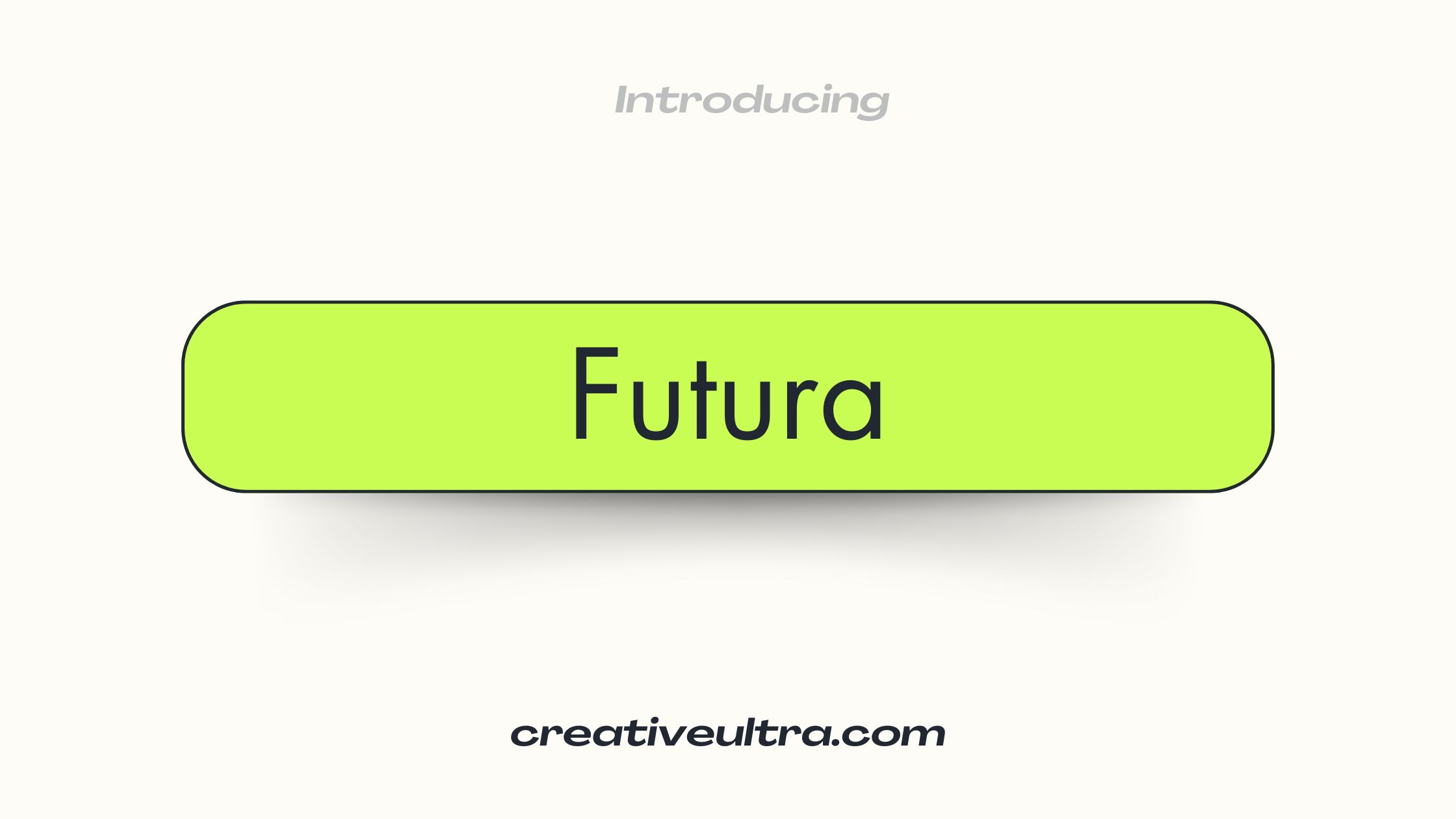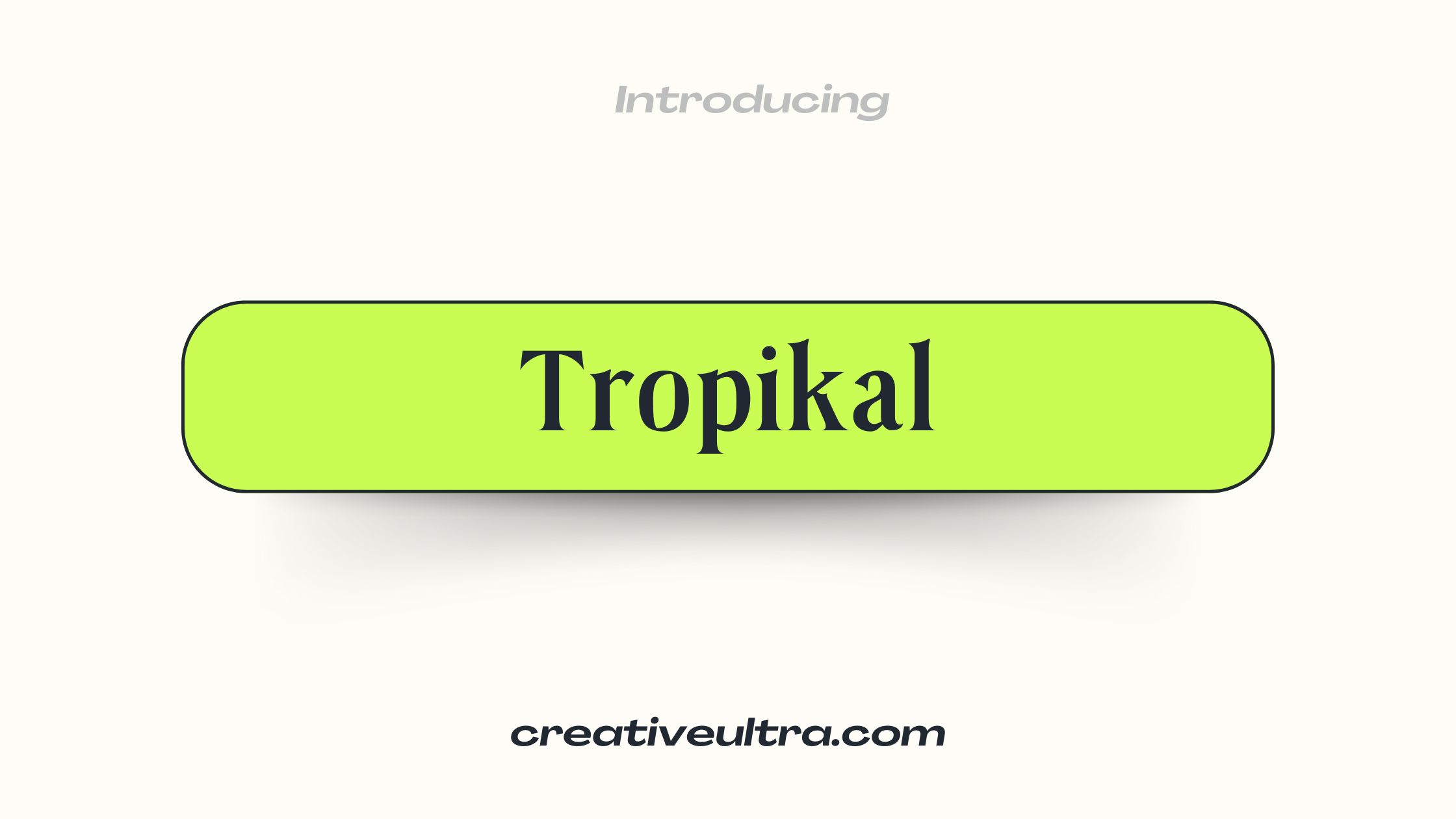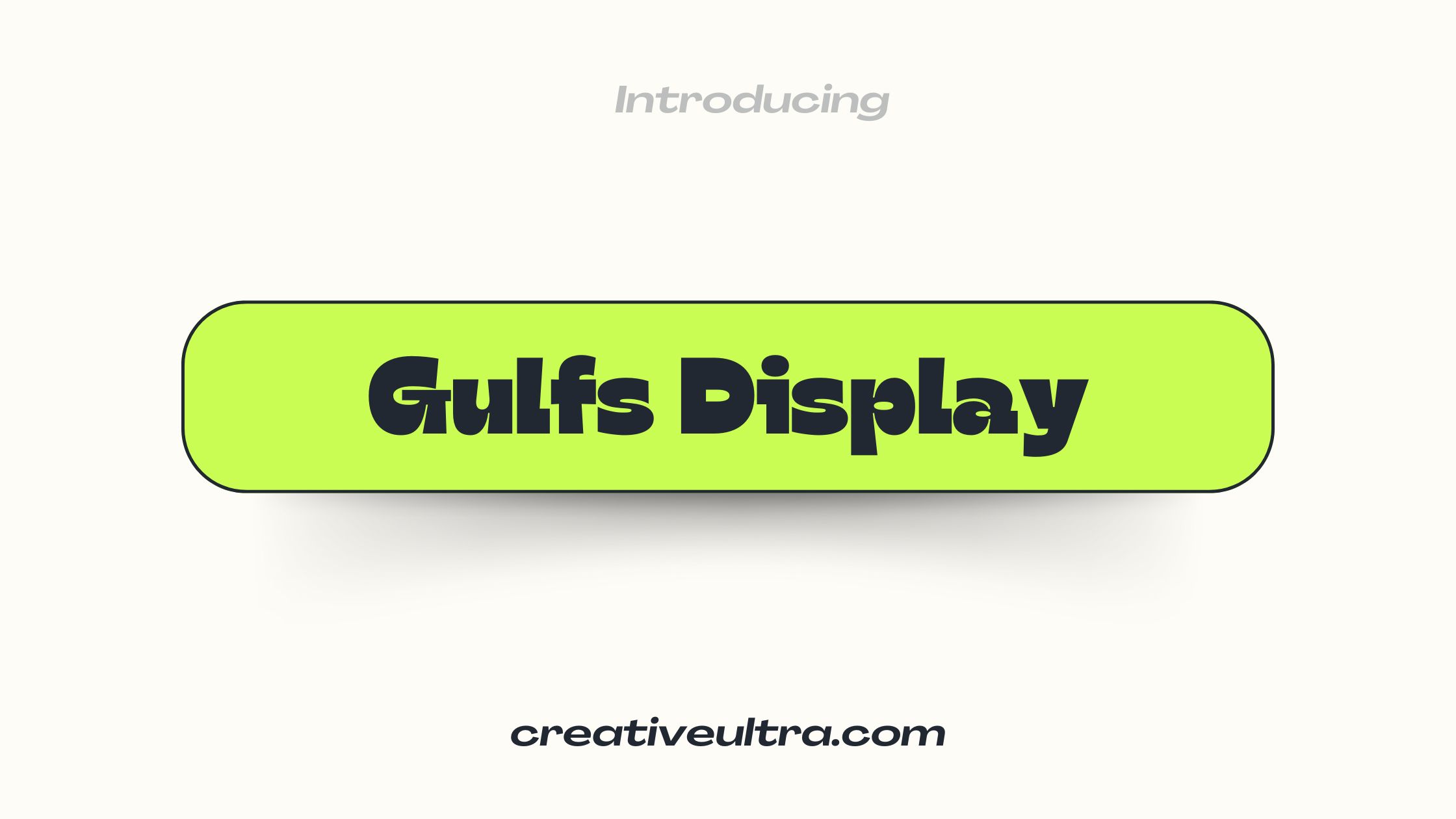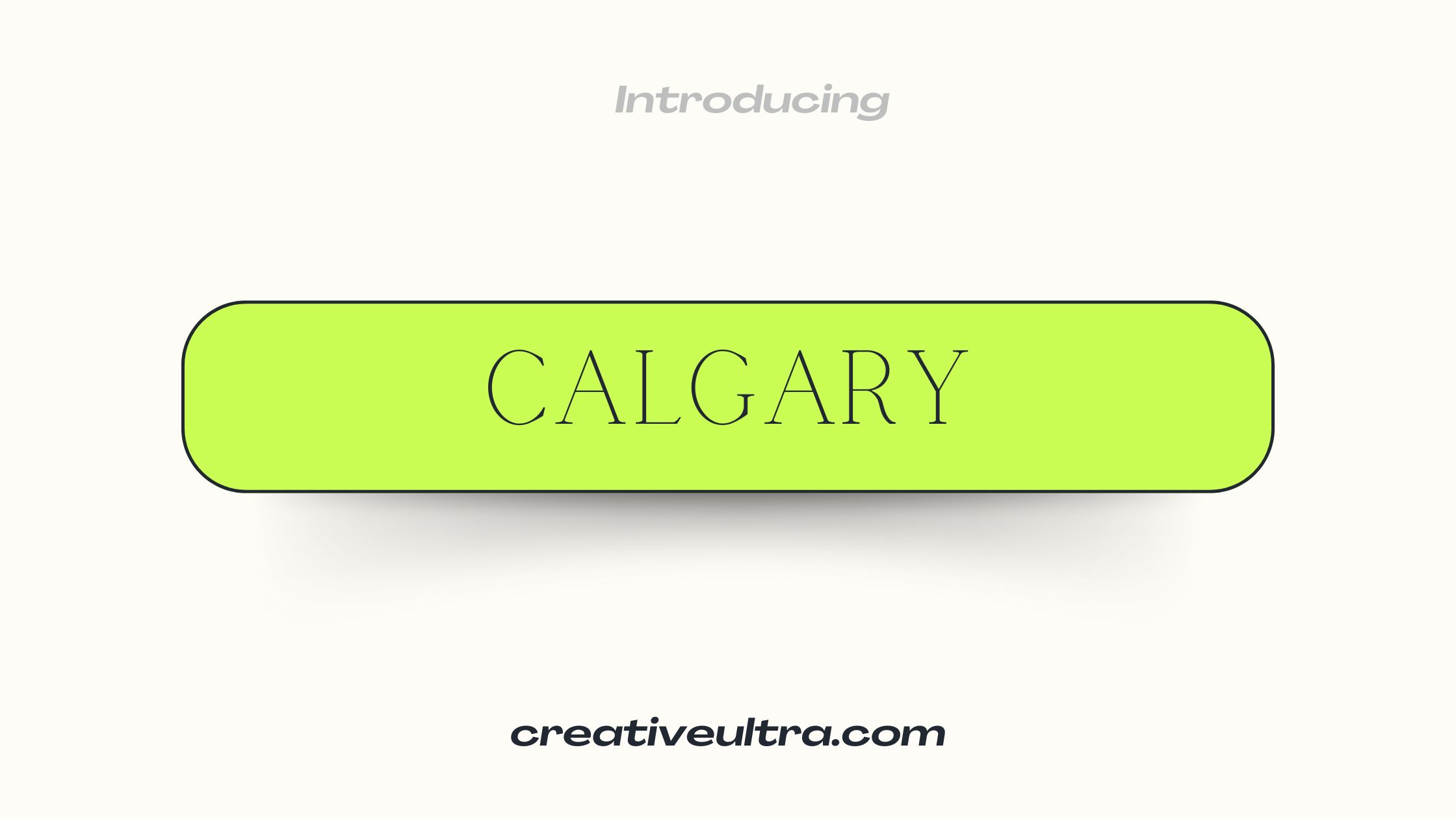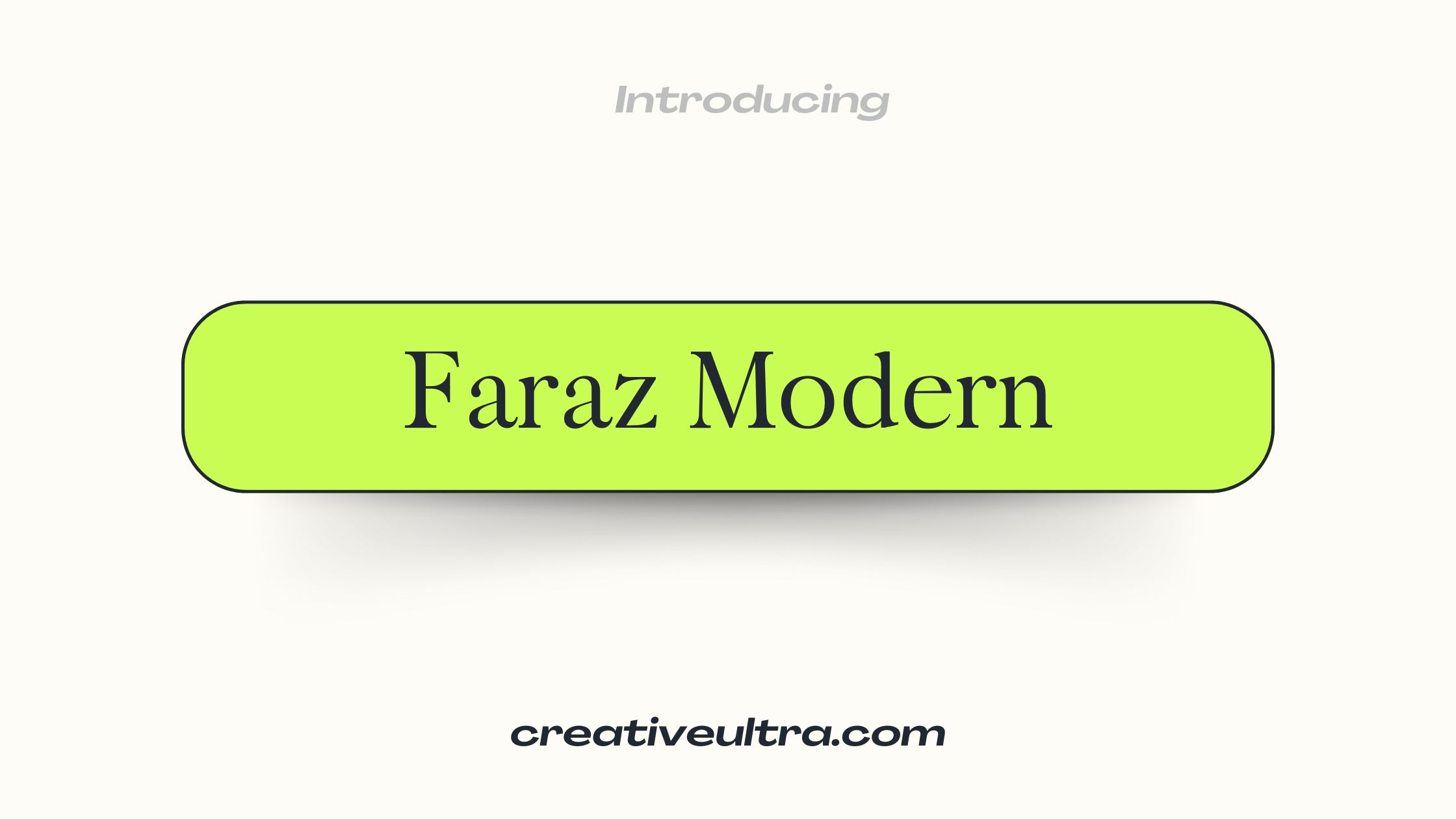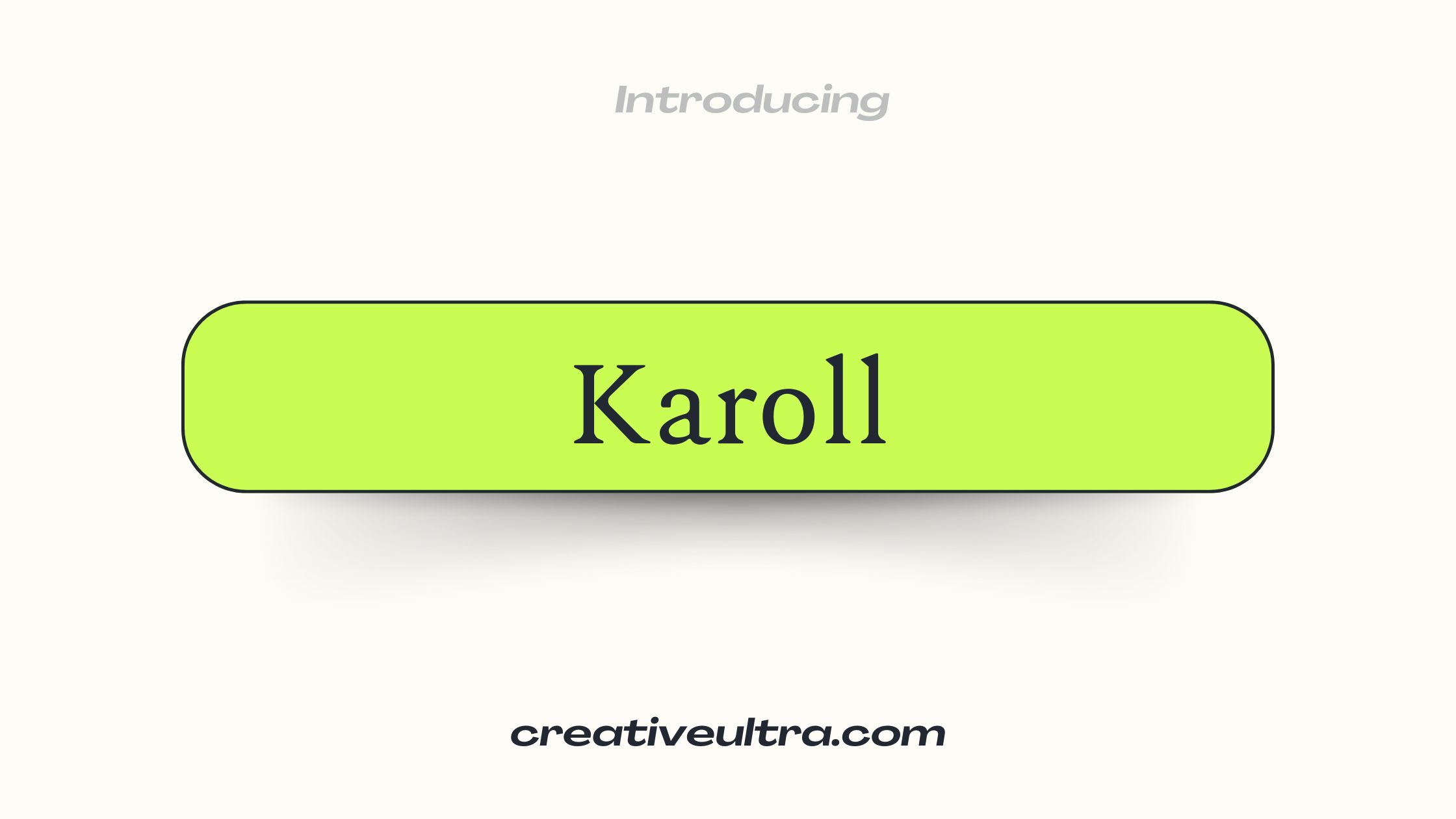
12 Best Canva Fonts for Posters
Are you looking for Canva fonts for posters? Fonts are the main ingredients nowadays when setting the tone and style of your design. Whether you’re working on a bold event flyer or a creative announcement, the right font can make your message shine.
Canva offers a large collection of fonts for poster designs and has styles like modern, playful, or classic. These fonts are easy to use, saving time while ensuring your design looks professional.
In this post, we’ve handpicked 12 of the best Canva fonts for posters. Each of these fonts has its unique feel and appearance, making it great for various poster themes. Let’s go into the details of these amazing fonts!
Futura Font
Futura is a classic geometric sans-serif font. Its clean and minimal look makes it perfect for modern posters. Great for headlines or logos.
Calgary Font
Calgary is a contemporary font with bold strokes and soft edges, ideal for attention-grabbing designs. It works well for posters with a chic vibe.
Gliker Font
Gliker is a sleek and versatile font with wide characters. It’s great for modern posters with a spacious, airy design style.
Faraz Modern Font
Faraz Modern combines elegance with boldness, offering tall, clean lines. Perfect for sophisticated event posters or branding.
Carollo Playscript Font
Carollo Playscript is a playful, handwritten font with a lively flow. Ideal for casual posters or kids’ events.
Neo Contact Font
Neo Contact is a classic, retro-inspired font with a touch of formality. Great for vintage or old-school poster designs.
Solway Font
Solway is a serif font that blends simplicity with tradition. It’s perfect for posters requiring a formal or academic look.
Karoll Font
Karoll is a dynamic display font with bold, angular strokes. It adds energy to sports or event posters.
Shrikhand Font
Shrikhand is a vibrant and eye-catching font with a unique style. Perfect for posters with a quirky or artistic theme.
Tropikal Font
Tropikal is a fun, tropical-inspired font that exudes summer vibes. Great for travel or beach-themed posters.
Gulfs Display Font
Gulfs Display is a bold display font with a modern touch. It’s perfect for tech or futuristic-themed posters.
Luckiest Guy Font
Luckiest Guy is a cheerful and bold font with a playful vibe. It’s ideal for fun, kid-friendly posters or parties.
Picking the right font makes your poster look great and grabs attention. These 12 Canva fonts are perfect for any poster style, from fun to modern. Try them in your next design and see how they make your posters stand out!